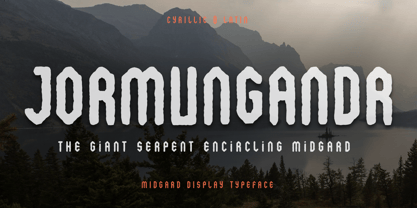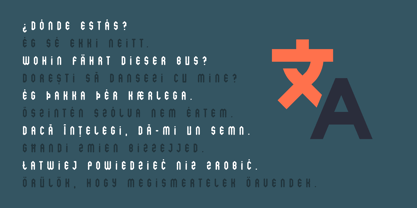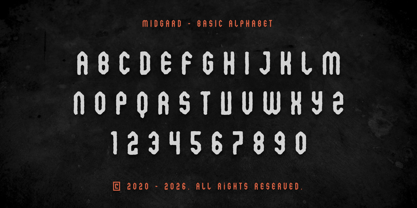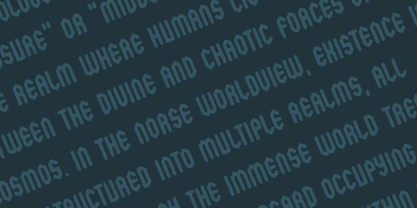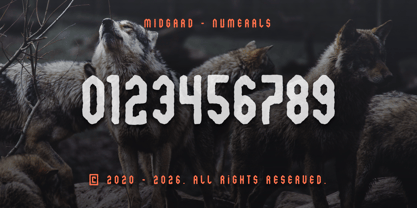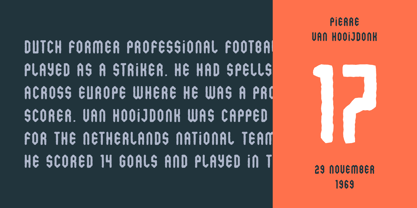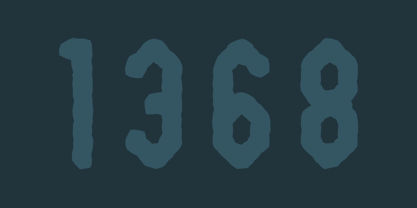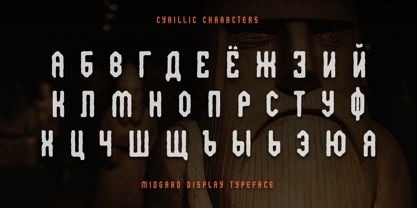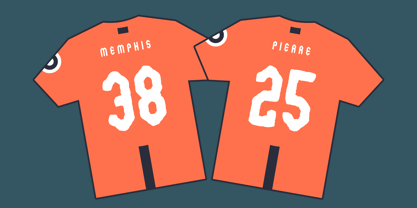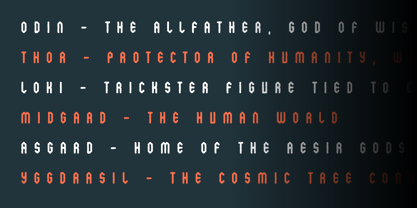
Midgard
by AlperCakici
The Midgard Font Family was designed by Alper Çakıcı and published by AlperCakici. Midgard contains 40 styles and family package options. More about this family
Midgard is a bold eroded display typeface built for raw, textured impact. Designed with a rugged, worn aesthetic, it captures the feel of weathered surfaces, ink bleed, and organic imperfections. Its expressive character makes it ideal for posters, branding, album covers, packaging, and editorial headlines that demand attention. With support for both Latin and Cyrillic languages, Midgard offers broad usability across international projects while maintaining a strong visual identity. The family includes 40 versatile styles, ranging from clean and structured to heavily distressed and experimental. Variations like Aged, Gritty, Rusty, Sketchy, and Traced provide a wide spectrum of texture, while Inline, Outline, Shadow, and Rimmed expand creative layering possibilities. Each style is carefully crafted to retain legibility while embracing a raw, handcrafted feel. Whether you're aiming for a vintage, industrial, grunge, or post-apocalyptic look, Midgard delivers flexibility and attitude in equal measure. Perfect for designers who want to break away from sterile typography and bring character into their work, Midgard stands strong in both digital and print environments.
Designers: Alper Çakıcı
Foundry: AlperCakici